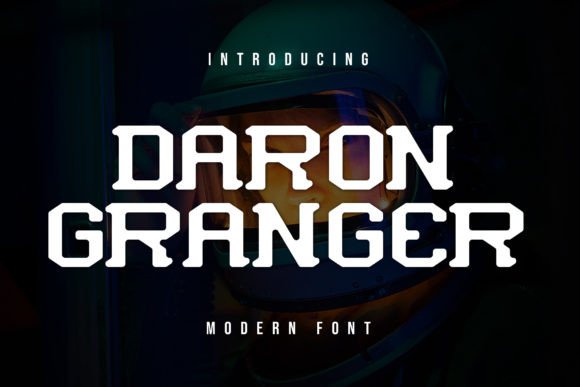
Buckle up for a visual adventure with Daron Granger, the display font that's got the world talking! From zerologicstudio comes this contemporary masterpiece, ready to ignite your creativity and leave you spellbound. Crafted with precision, Daron Granger oozes coolness with its modern aesthetic, ensuring your designs stand out from the crowd.
Unleash your imagination and let Daron Granger take center stage in your creative endeavors. Whether it's branding, posters, logos, or eye-catching headlines, this font has the charisma to make your words dance off the page. Its versatility knows no bounds, effortlessly adapting to a symphony of design styles, from retro to contemporary.
Gone are the days of settling for ordinary fonts. With Daron Granger, every letter carries a story, captivating your audience with its distinctive charm. Its bold strokes command attention, while its elegant curves add a touch of sophistication to your designs. Say goodbye to bland typography and embrace the allure of Daron Granger, the font that transforms the mundane into the magnificent.
Are you ready to elevate your designs to new heights? Dive into the world of Daron Granger and experience the synergy of style and functionality. This font isn't just a tool; it's an extension of your creative vision, allowing you to paint your words with confidence and flair. Join the ranks of design enthusiasts who have succumbed to Daron Granger's allure and let your creativity soar to unprecedented heights.